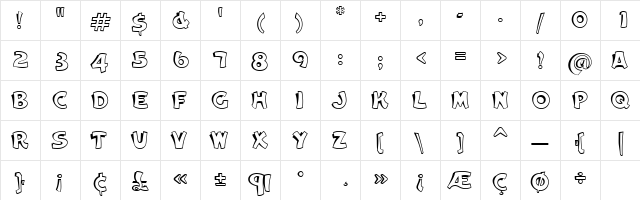
Cameo Regular
Design Context for Cameo Typeface
Cameo is a composed and adaptable typeface that performs quietly and consistently across a wide range of design contexts.
Pro Tip: Use Cameo in both headline and body roles to test its range before committing to a single application.